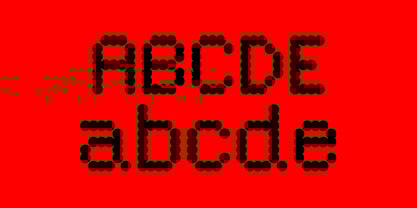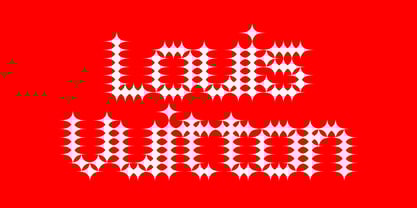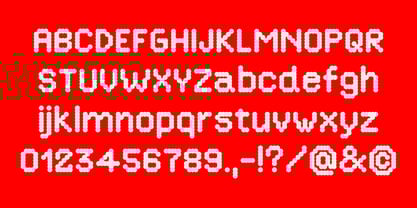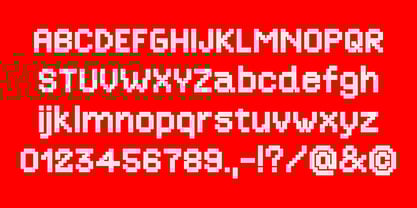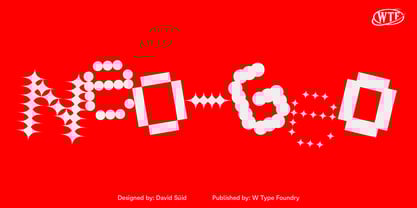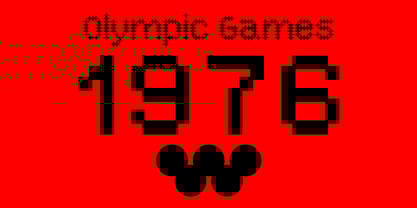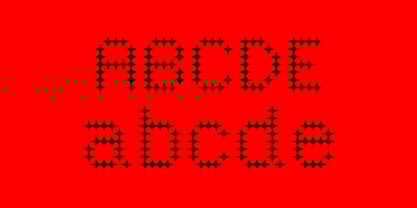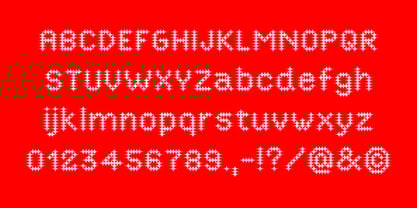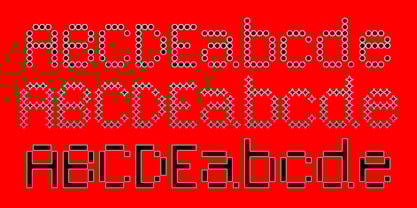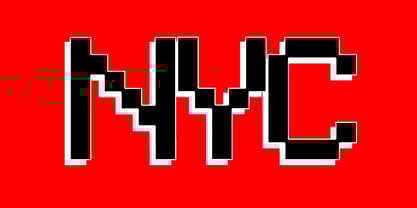
Neo Geo
by W Type Foundry
The Neo Geo Font Family was designed by David Súid and published by W Type Foundry. Neo Geo contains 9 styles and family package options.
Neo-Geo was born from experiments with variable font technology, aiming to create a dynamic project. A construction system with established rules was proposed for learning through modules. This typeface is variable across modules and weights, and its name derives from its contraction system and form.
Neo-Geo features 9 fixed weights and one variable version, offering three shapes for now—square, star, and circle—with the potential for expanded variants and extensions in the future. This typeface is designed for titles and short texts in contemporary compositions.